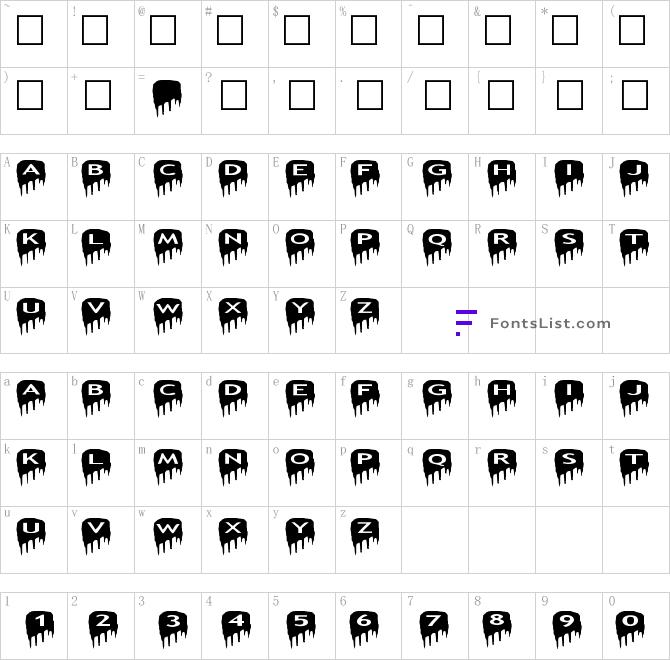
- Font Name:AlphaShapes meltdowns reverse
AlphaShapes-meltdowns-reverse.ttf is a very beautiful artistic font, AlphaShapes-meltdowns-reverse.ttf is widely used in the design and printing of various books and pictures,AlphaShapes-meltdowns-reverse.ttf has a strong visual impact,AlphaShapes-meltdowns-reverse.ttf is a commonly used font in newspapers, magazines and books, and is used in posters, e-commerce Poster design, store design, logo design, font design and other fields.AlphaShapes-meltdowns-reverse.